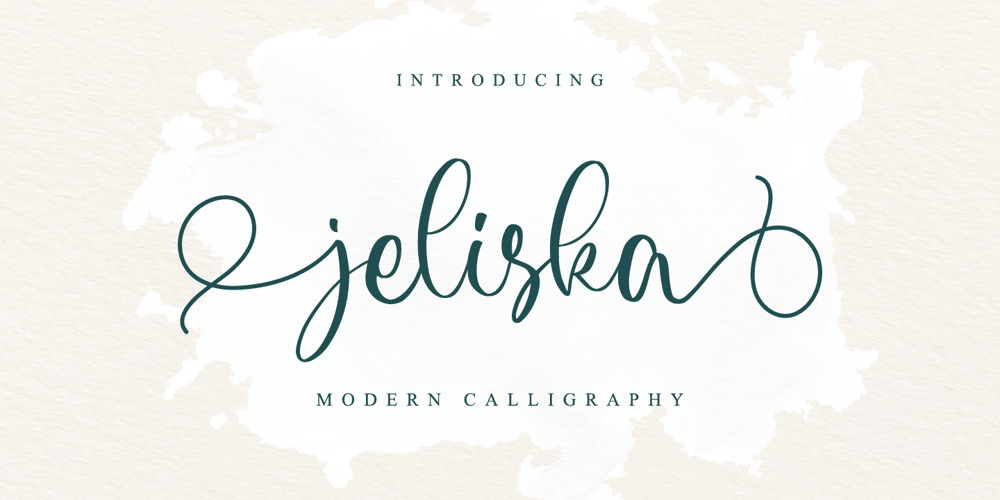
Jeliska
Jeliska font
Jeliska Font Family was designed by Novia Himatunnisa and published by Nissa Nana. Jeliska contains 1 styles and family package options. Jeliska is a delicate and well balanced calligraphy typeface with characters that dance along the baseline. It will add a luxury spark to any design project that you wish to create!